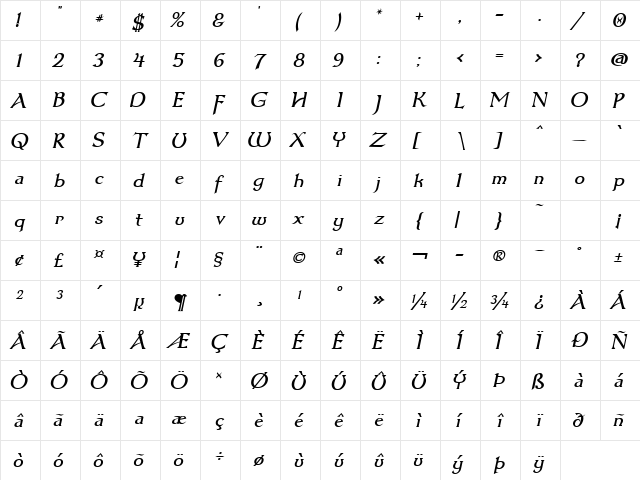
Dumbledor 3 Italic Regular
Design Context for Dumbledor 3 Italic Typeface
Dumbledor 3 Italic offers clean, dependable letterforms without strong stylistic allegiance, making it a practical choice for designers who need flexibility. Its italic angle brings a sense of urgency and motion to the letterforms.
Pro Tip: Try Dumbledor 3 Italic for annotation and caption copy alongside an upright companion — the contrast in angle creates a dynamic but ordered typographic system.